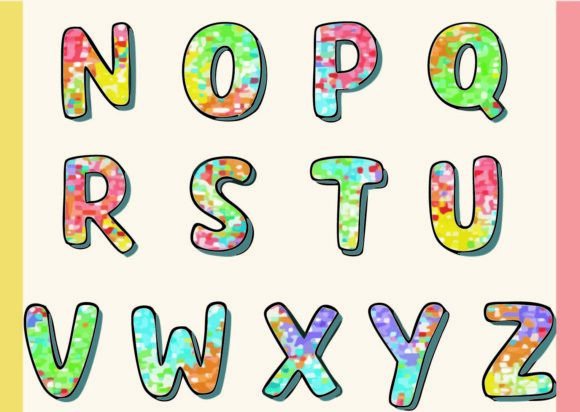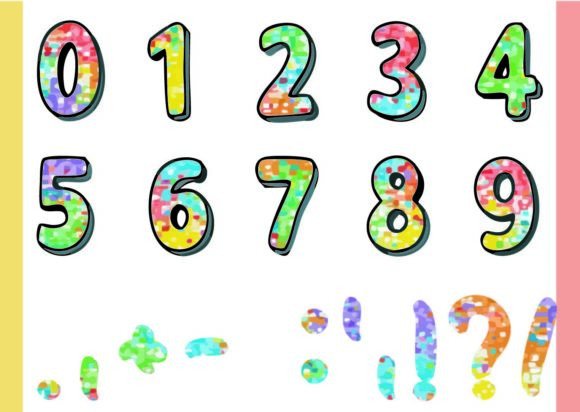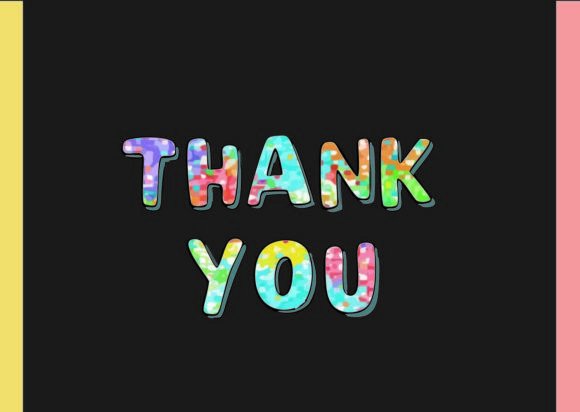
Introducing Elliana Font: A Colorful Heaven for Designers and Crafters
Are you tired of using the same old fonts in your designs? Look no further than Elliana Font, a revolutionary color font that is taking the design world by storm. In this article, we’ll dive into the world of Elliana Font, exploring its unique features, compatibility, and uses, making it a must-have for designers and crafters alike.
What is Elliana Font?
Elliana Font is a color font, also known as a chromatic font, that boasts a stunning array of colors. What sets it apart is that every single glyph has a different set of colors, creating a mesmerizing visual effect. If you take a closer look at the glyphs, you’ll notice intricate sets of paths and connections in each one, making every glyph a typographic painting in its own right.
Technical Details: Opentype-SVG and Compatibility
Design Possibilities with Elliana Font
With Elliana Font, the design possibilities are endless. Imagine creating stunning typographic pieces, vibrant posters, and eye-catching social media graphics that pop with color. The font’s unique, hand-crafted aesthetic adds a touch of personality to any design, making it perfect for:
- Digital art and illustrations
- Crafting and scrapbooking
Tips for Using Elliana Font
- Experiment with different colors and combinations to find the perfect look for your design.
- Use Elliana Font to add a pop of color to your designs, or as a statement piece.
- Don’t be afraid to get creative and try new things – Elliana Font is all about experimentation and self-expression.
- What is a color font? A color font, also known as a chromatic font, is a type of font that uses multiple colors within the font file.